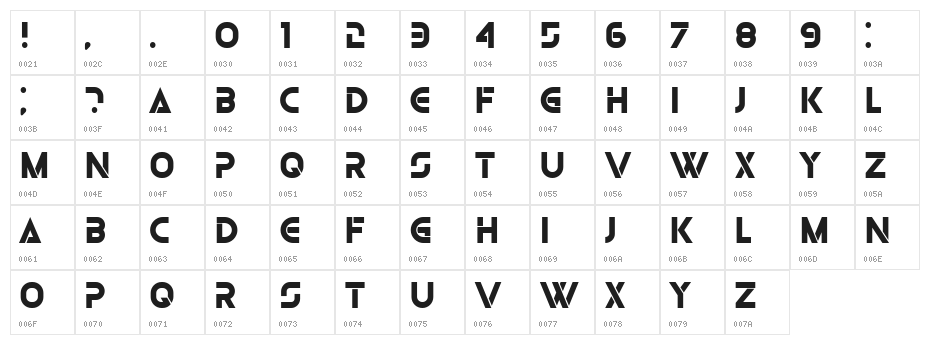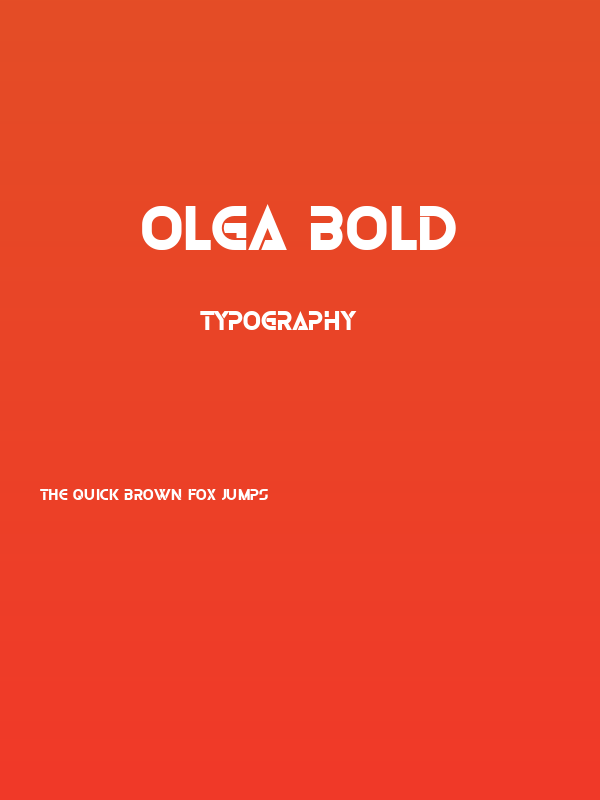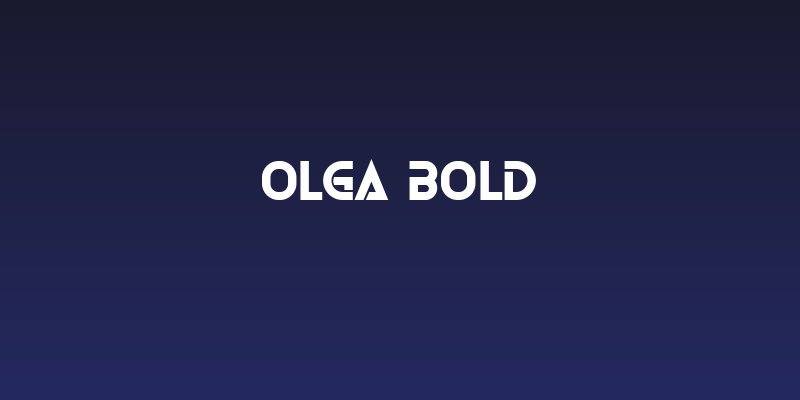
Olga Bold Font
Olga Bold Description
This bold, geometric font features a modern and futuristic design with strong, angular lines and a distinct, blocky appearance. The characters are crafted with a unique style that combines sharp edges and smooth curves, creating a dynamic and eye-catching look. The uppercase letters are particularly striking, with a consistent height and width that enhance readability while maintaining a bold presence. The numerals and special characters follow the same design principles, ensuring a cohesive appearance across all elements. This font is ideal for projects that require a strong visual impact and a contemporary feel.
| Proposed Projects | Ideal for branding, posters, headlines, and digital media that require a strong visual impact. |